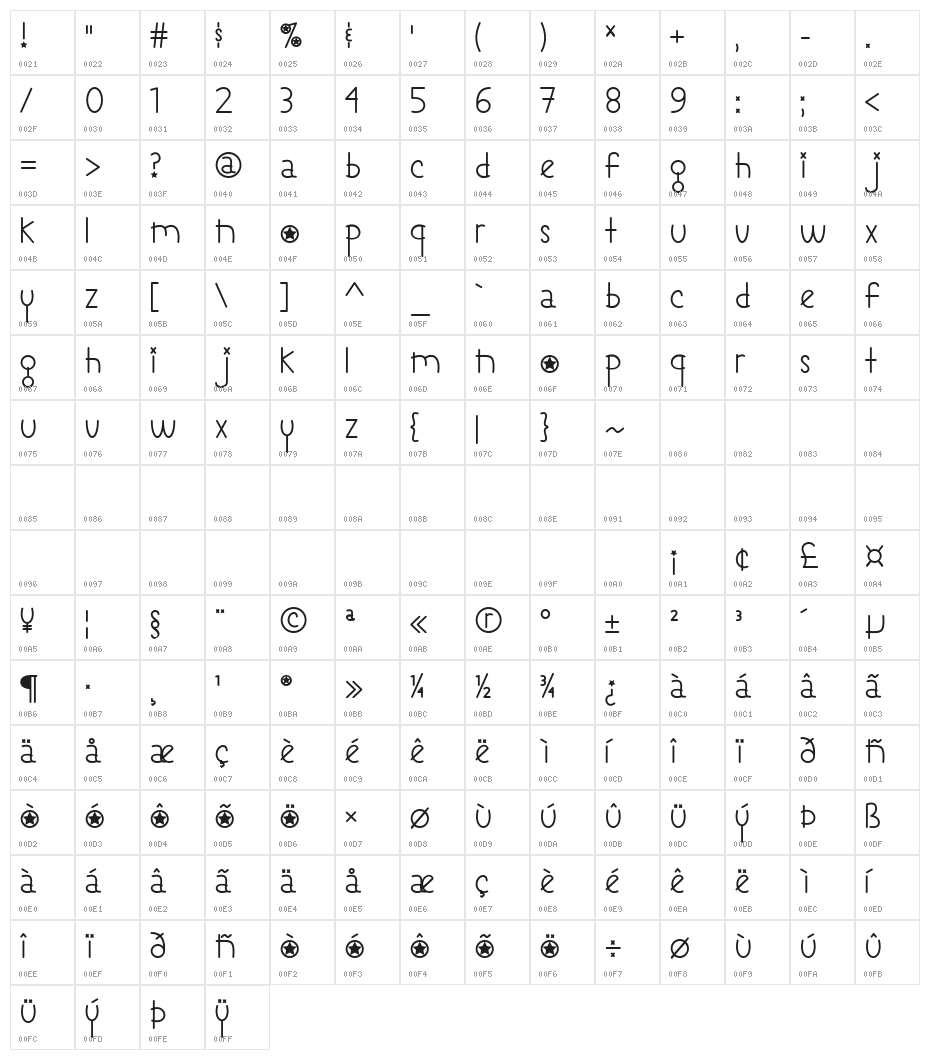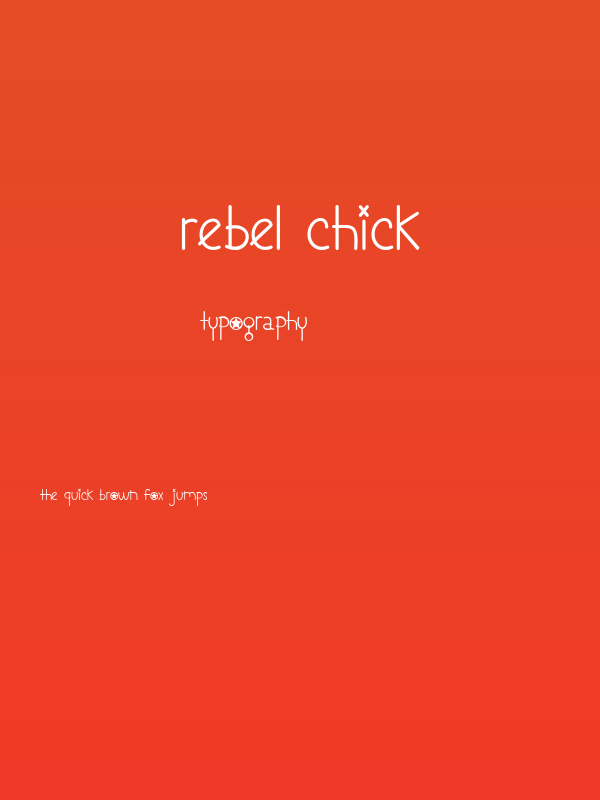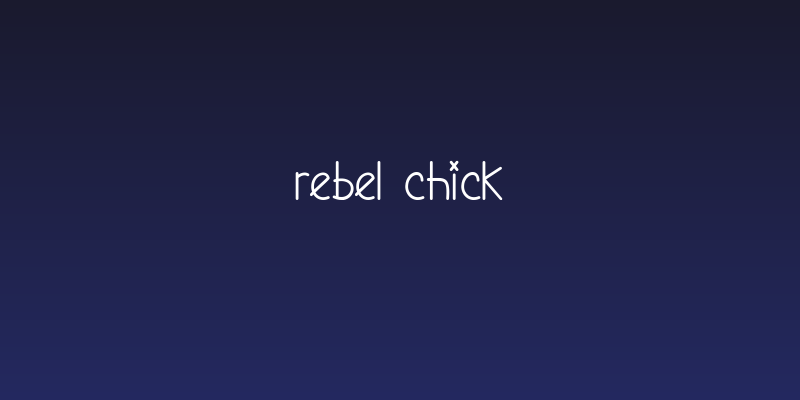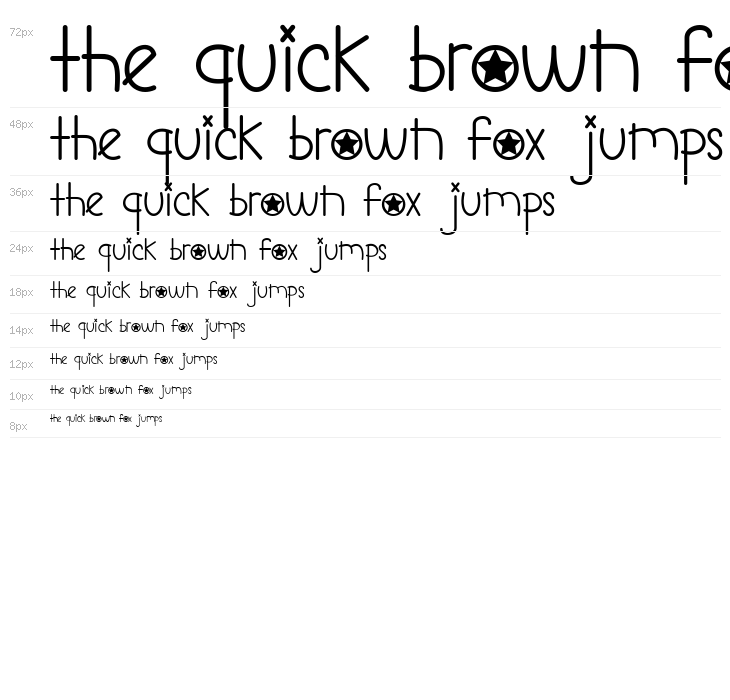
Rebel Chick Font
Rebel Chick Description
This playful and quirky font features a unique blend of rounded and angular elements, creating a distinctive and eye-catching appearance. The letters are characterized by their thin, uniform strokes and whimsical embellishments, such as stars and circles, which add a touch of fun and creativity. The font maintains a consistent line weight throughout, ensuring readability while still offering a decorative flair. Its modern and unconventional style makes it suitable for projects that aim to stand out and convey a sense of individuality and creativity.
| Proposed Projects | Ideal for children's books, creative branding, playful posters, and unique invitations. |